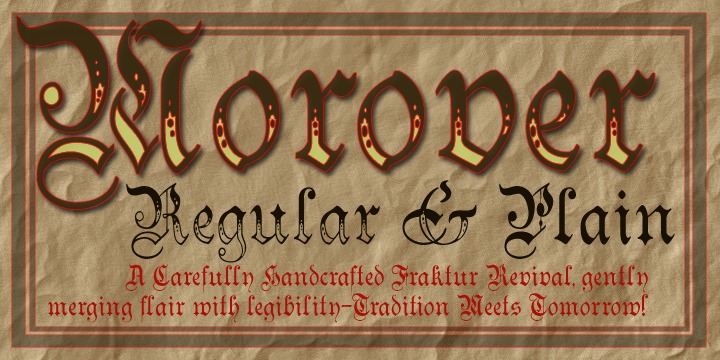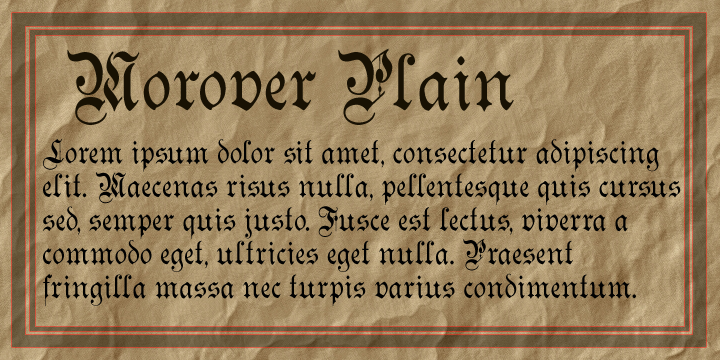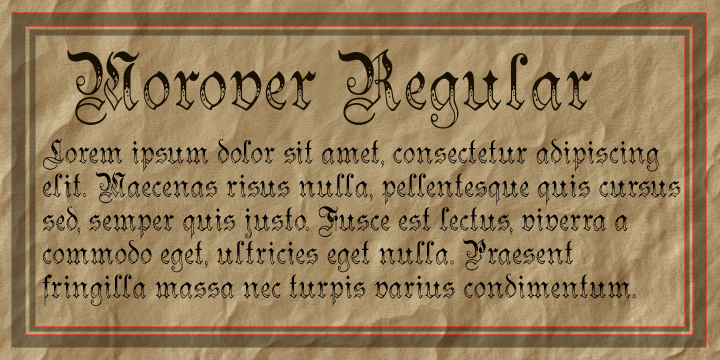
Morover Font Family
Morover is a lively display Fraktur, which manages to combine legibility with hand-drawn charm. All letterforms are carefully hand constructed to bring great legibility and clarity to the family of two faces-ideal for seasonal or festive work, or anywhere that vintage charm is required.